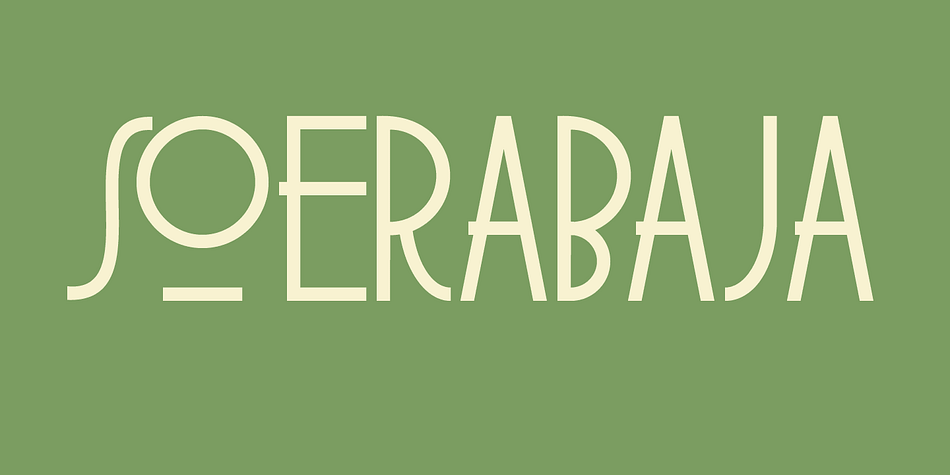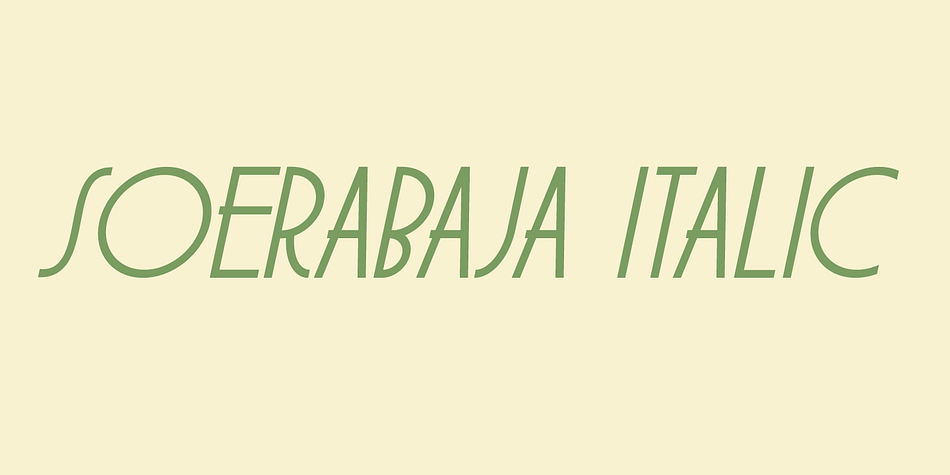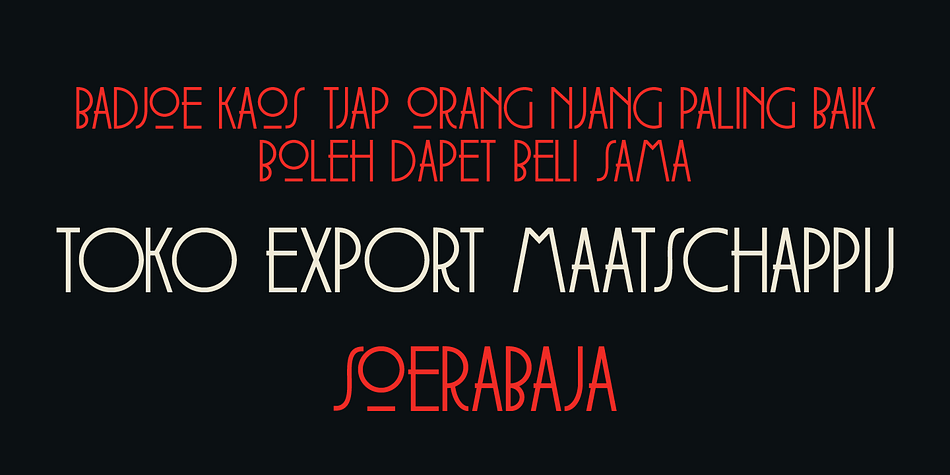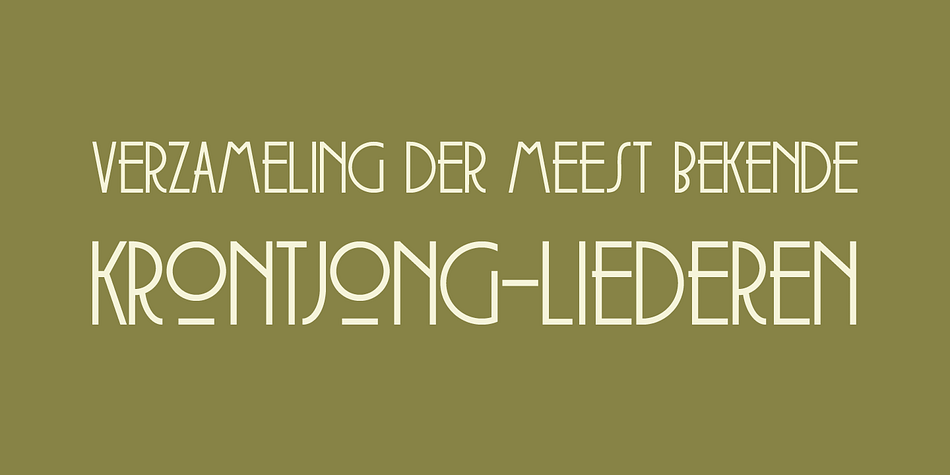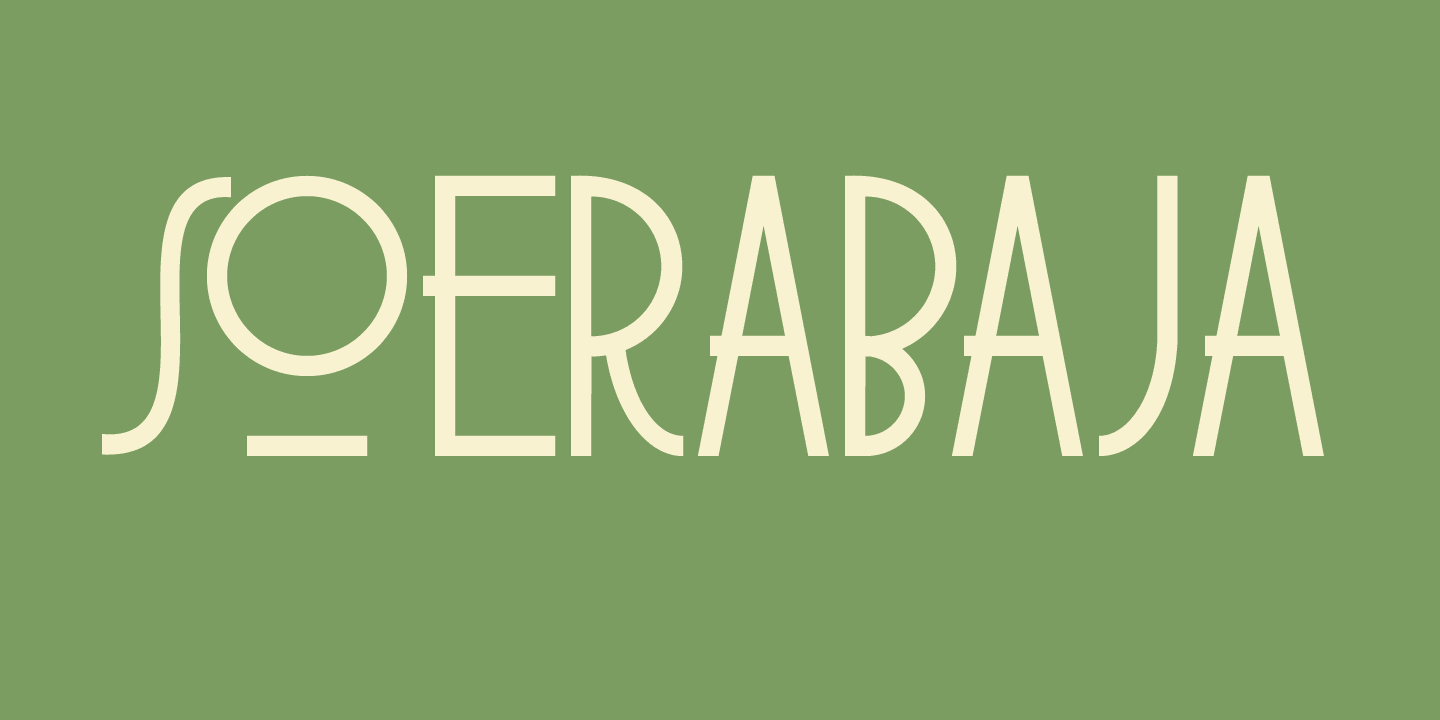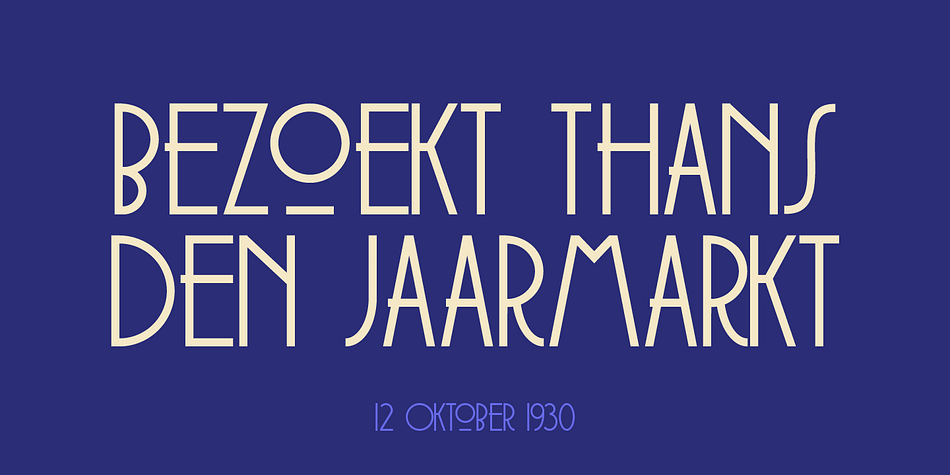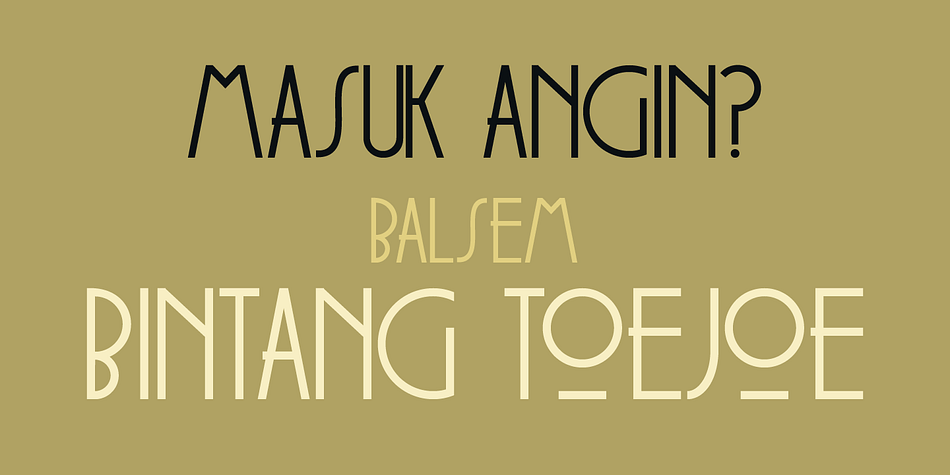
Designed by David Kerkhoff, Soerabaja is a retro, display sans and art deco font family. This typeface has two styles and was published by Hanoded.
Soerabaja is the old Dutch spelling of Surabaya, an important trading port city in East Java (Indonesia). This all caps art deco font was based on old colonial posters I found, plus a sprinkling of my imagination. It seems I have a weak spot for Art Deco fonts named after Indonesian cities - partly because the country has always interested me and partly because my wife’s family is from Indonesia.
Soerabaja is quite an elegant font, so use it for your book titles, restaurant menus and whatever else you can come up with.